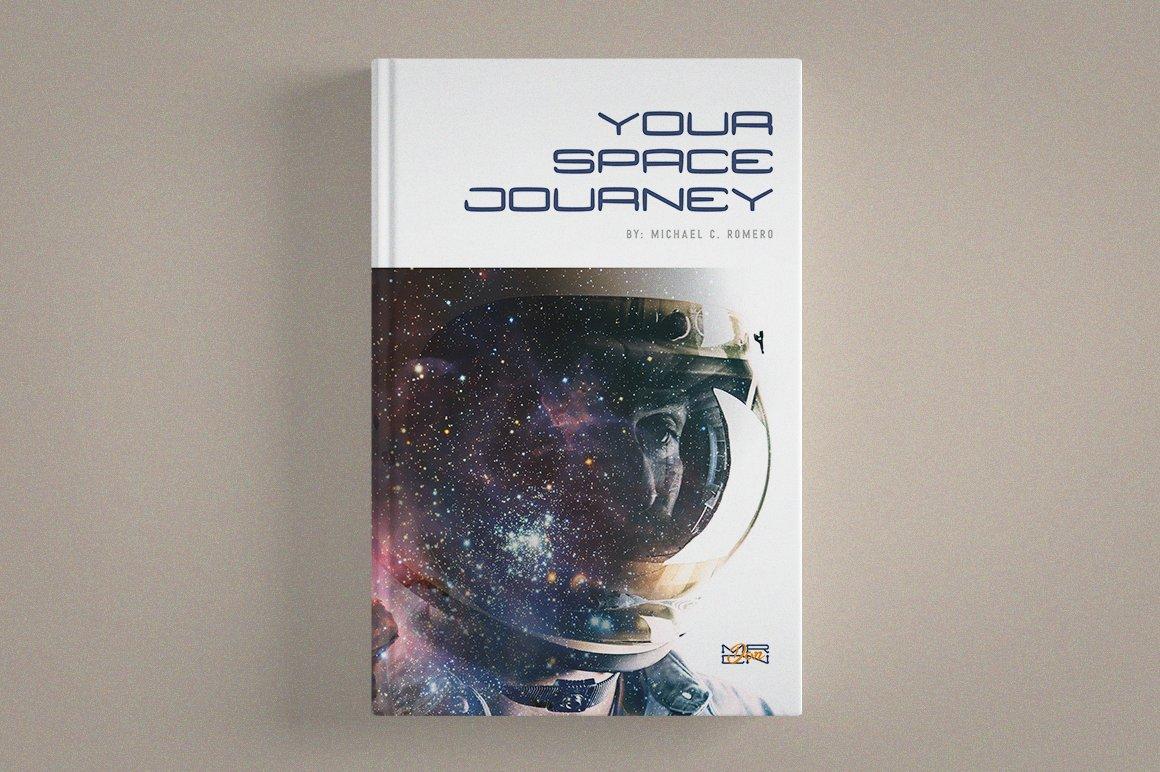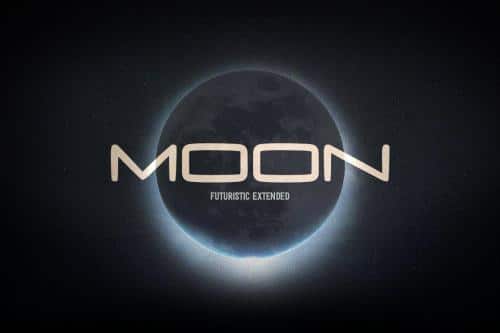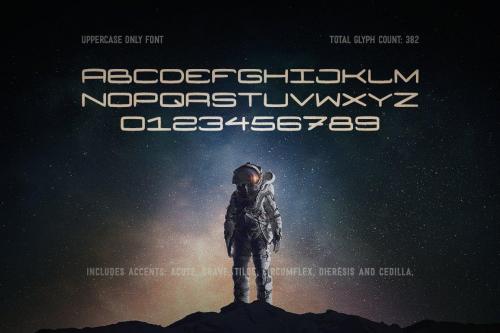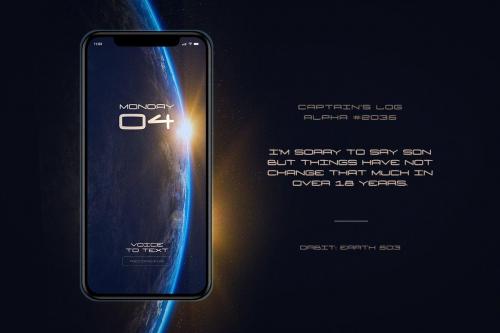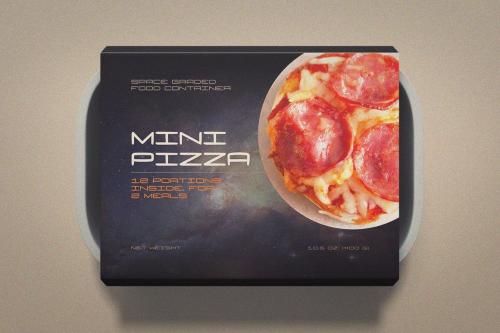
Moon is a handmade font created for short texts in a log kind of way that take place on a space station during a deep space adventure, the idea is to use the extended type of design that translates very well that futuristic vibe and sci-fi look and feel, uses clean rounded uneven lines from the legacy of the original hand drawing. Ideal for projects with a unique out of this world theme.